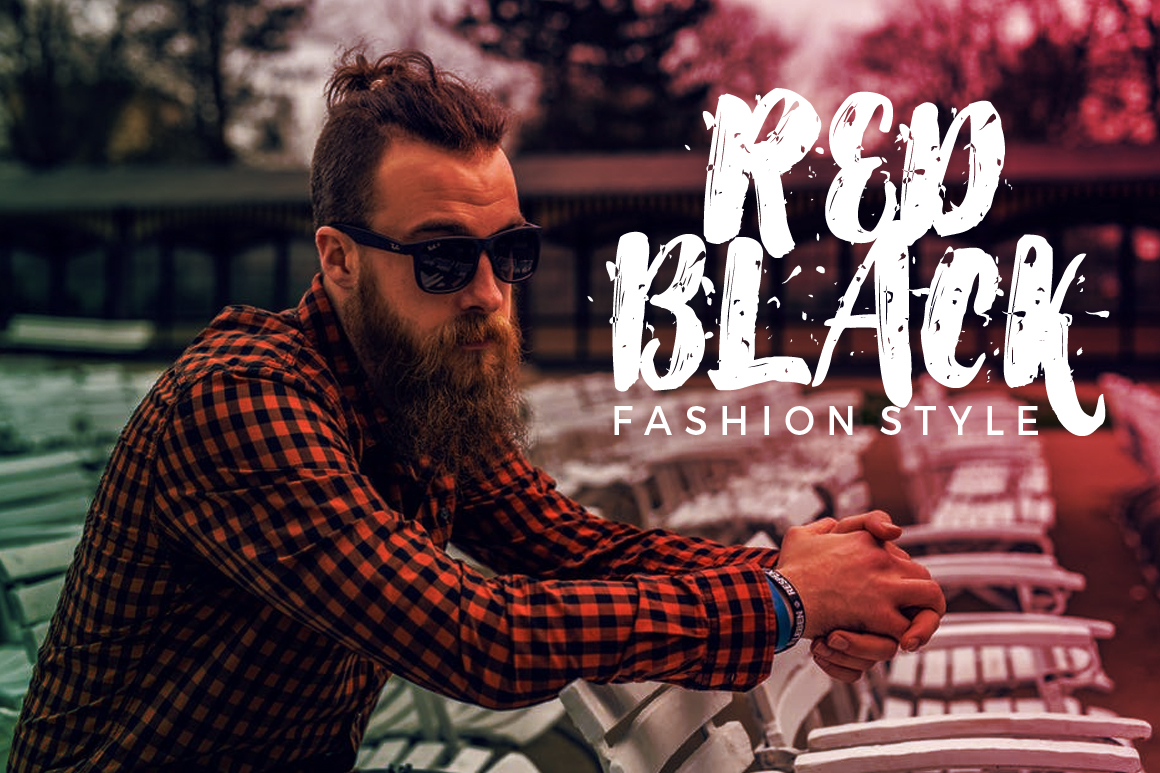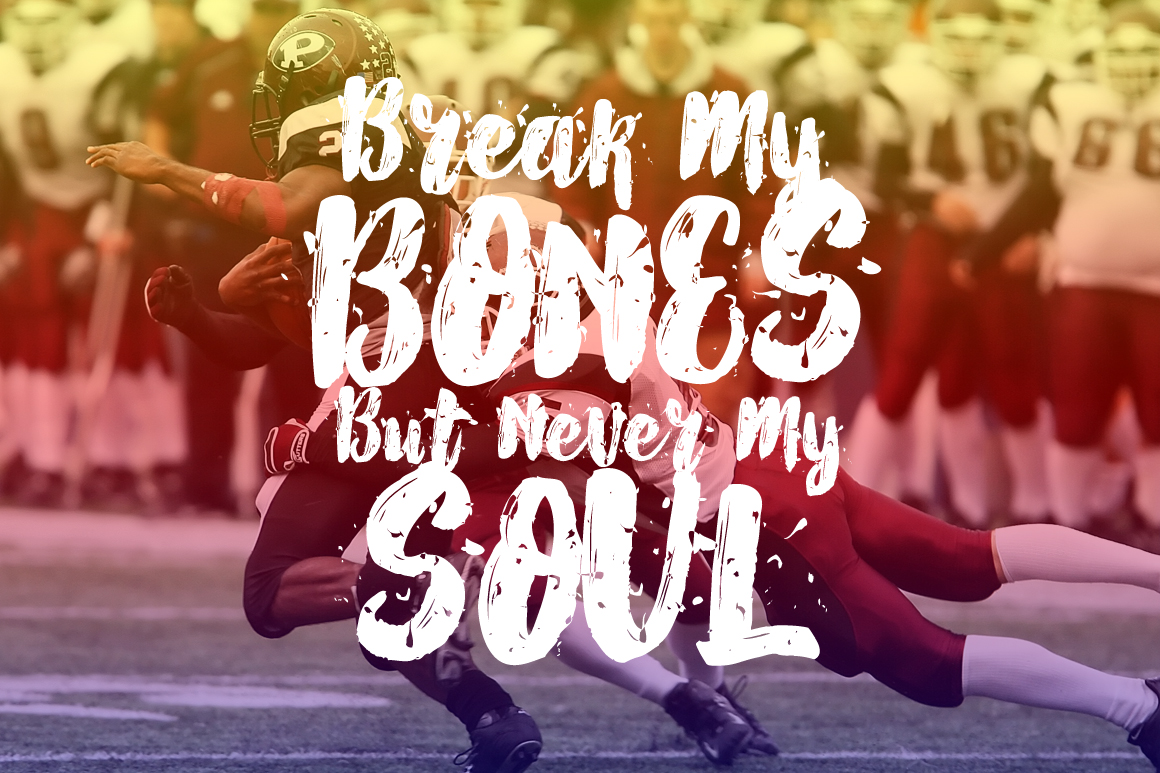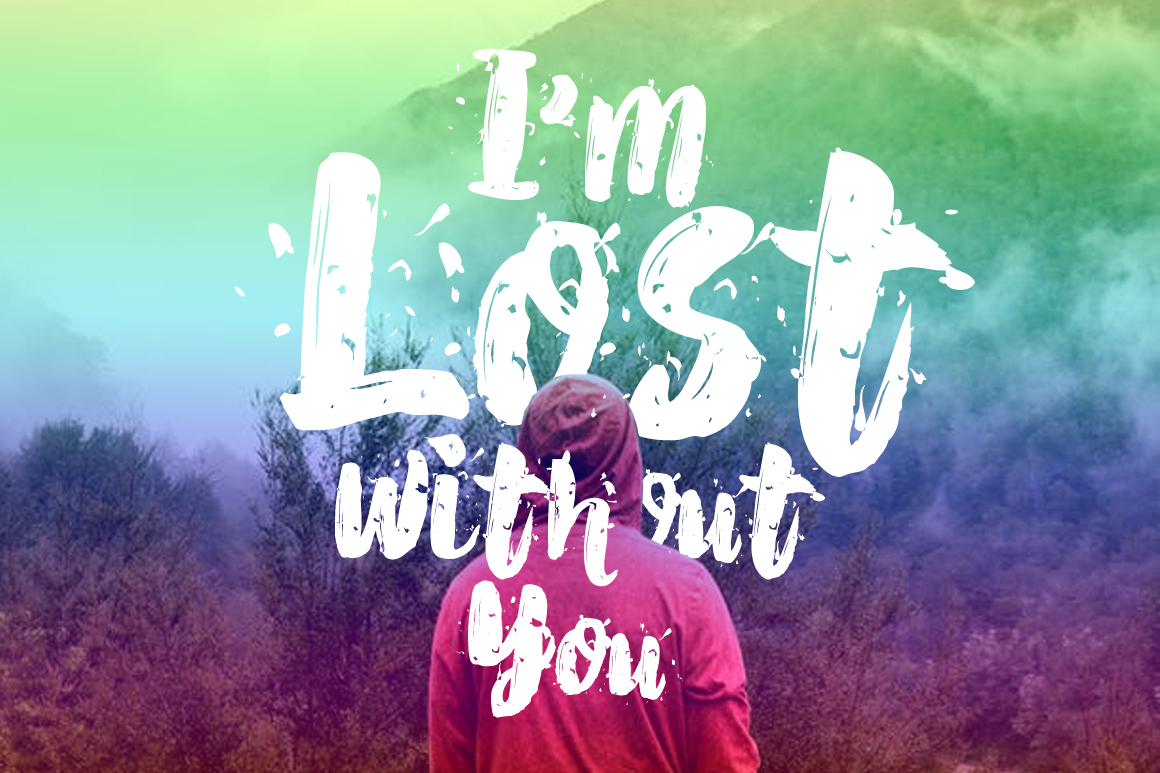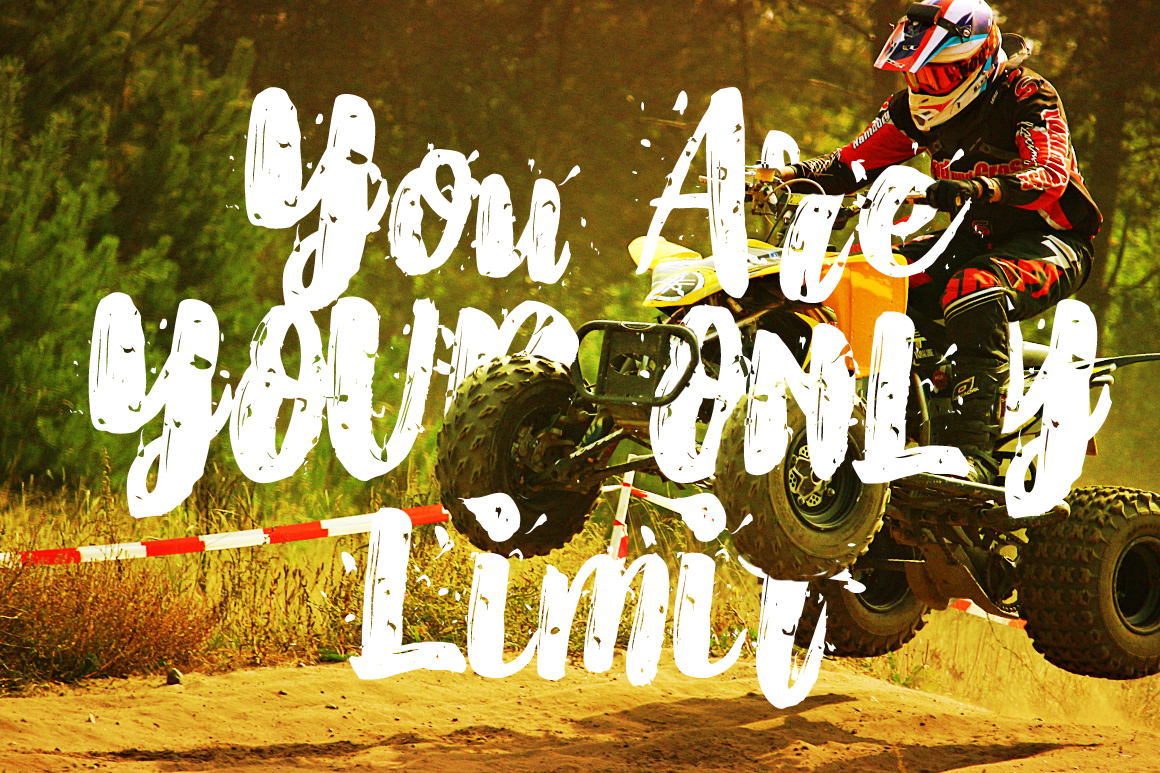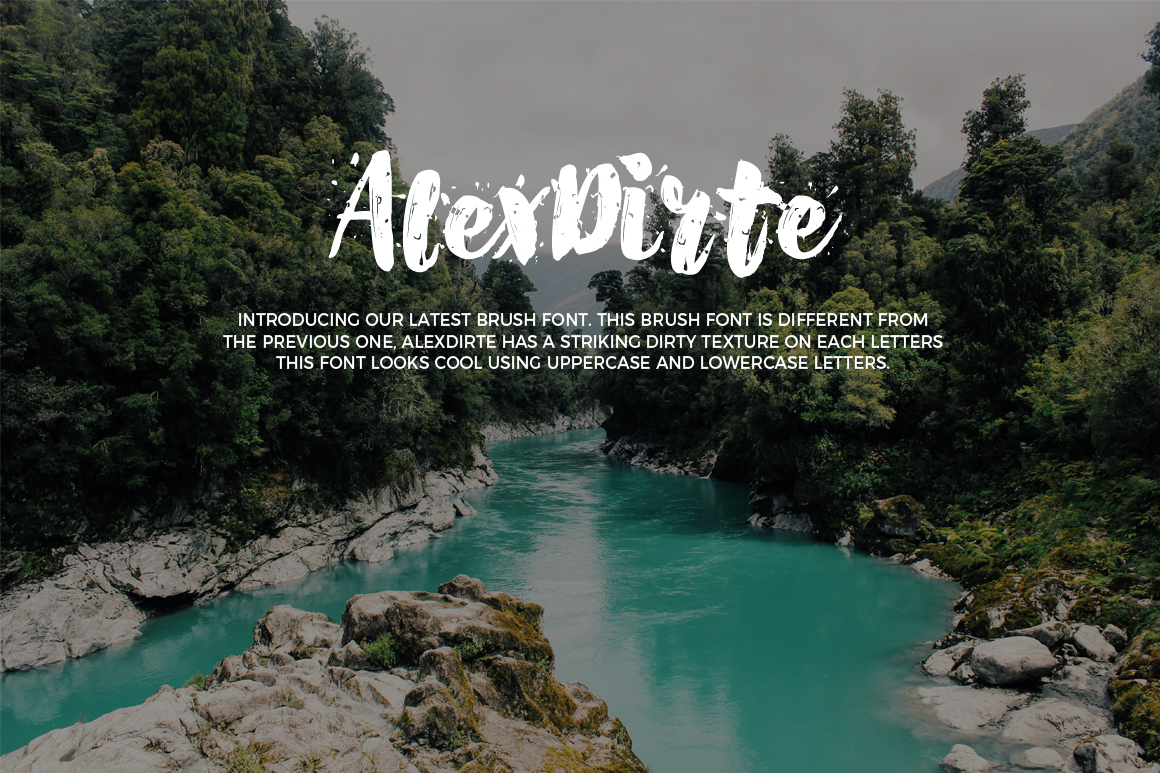
Introducing AlexDirte Font: Adding a Touch of Gritty Elegance to Your Designs
Are you tired of using the same old fonts in your designs? Do you want to add a touch of uniqueness and personality to your work? Look no further than AlexDirte Font, a set of two stunning brush fonts that are sure to elevate your designs to the next level. This exciting font set consists of AlexDirte Brush and AlexDirte Slant Brush, each offering a distinctive look that’s perfect for designers and crafters looking for something new and exciting.
The Unique Characteristics of AlexDirte Font
What sets AlexDirte Font apart from other fonts is its unique texture. Each letter in this font set has a dirty, gritty texture that gives it a rough, organic look and feel. This texture adds a level of depth and character to your designs that’s hard to achieve with more traditional fonts. Whether you’re working on a project that requires a bold, statement-making font or something more subtle and understated, AlexDirte Font is sure to deliver.
Exploring the Two Fonts in the AlexDirte Set
The AlexDirte Font set includes two distinct fonts: AlexDirte Brush and AlexDirte Slant Brush. Each font offers its own unique take on the gritty, textured look that’s characteristic of the set.
AlexDirte Brush
AlexDirte Brush is the first font in the set, and it’s a real showstopper. This font features bold, sweeping brushstrokes that give it a dynamic, expressive feel. The texture is rough and organic, with a subtle irregularity that adds to the font’s charm. AlexDirte Brush is perfect for designers who want to add a touch of drama and flair to their work.
AlexDirte Slant Brush
For a slightly different take on the gritty texture, AlexDirte Slant Brush is a great option. This font features the same rough, organic texture as AlexDirte Brush, but with a slanted, italicized feel that’s perfect for adding a touch of sophistication and elegance to your designs. The slanted design also helps to create a sense of movement and energy, making it ideal for projects that require a bit of dynamism.
Using AlexDirte Font in Your Designs
So, how can you use AlexDirte Font in your designs? The possibilities are endless! Here are a few ideas to get you started:
- Invitations and Announcements: Use AlexDirte Font to add a touch of personality and flair to your invitations and announcements. The gritty texture and bold brushstrokes are perfect for creating eye-catching, statement-making designs.
- Branding and Packaging: AlexDirte Font is also a great choice for branding and packaging projects. The unique texture and organic feel of the font can help to create a distinctive, memorable brand identity that’s sure to stand out.
- Digital and Print Media: Whether you’re working on a digital project or a print project, AlexDirte Font is a versatile choice that can help to add visual interest and personality to your designs.
Tips and Tricks for Getting the Most Out of AlexDirte Font
To get the most out of AlexDirte Font, here are a few tips and tricks to keep in mind:
- Experiment with Different Sizes: The texture of AlexDirte Font is most pronounced at larger sizes, so don’t be afraid to experiment with different sizes to find the one that works best for your project.
- Pair with Other Fonts: AlexDirte Font pairs well with a variety of other fonts, so try combining it with some of your favorite fonts to create a unique, eye-catching design.
- Play with Color: The gritty texture of AlexDirte Font looks great in a variety of colors, so don’t be afraid to experiment with different color schemes to find the one that works best for your project.
| Font Name | AlexDirte Font |
| Author | Debut Studio |
In conclusion, AlexDirte Font is a unique and versatile font set that’s perfect for designers and crafters looking to add a touch of gritty elegance to their work. With its distinctive texture and bold, expressive brushstrokes, this font set is sure to elevate your designs to the next level. Whether you’re working on a project that requires a bold, statement-making font or something more subtle and understated, AlexDirte Font is a great choice. So why wait? Download AlexDirte Font today and start adding a touch of gritty elegance to your designs!